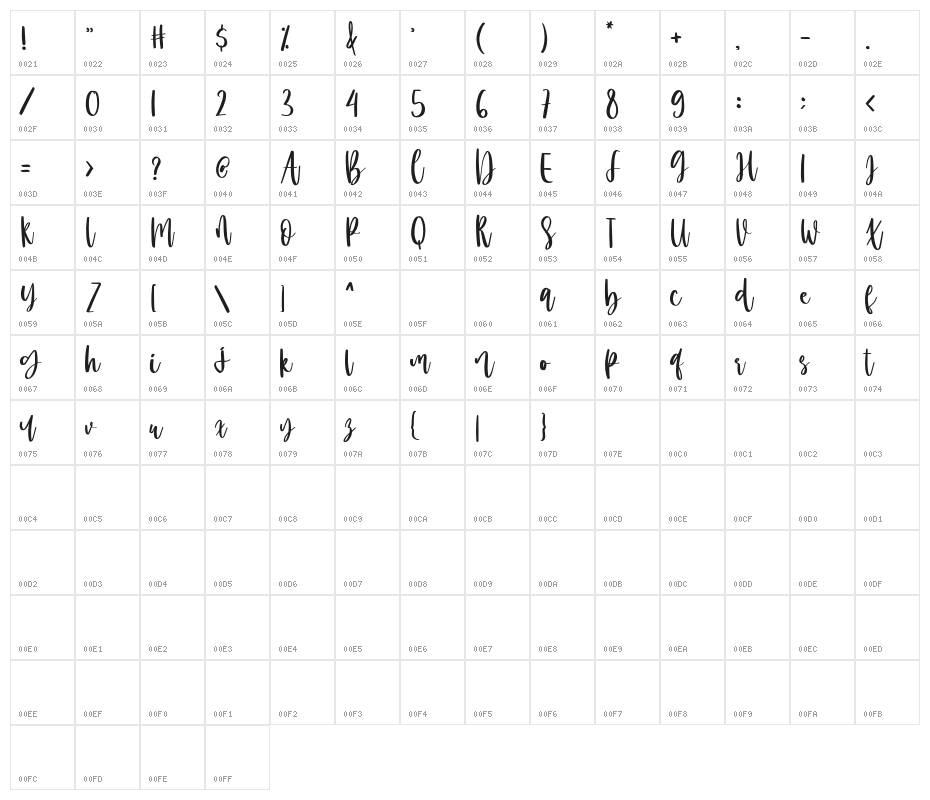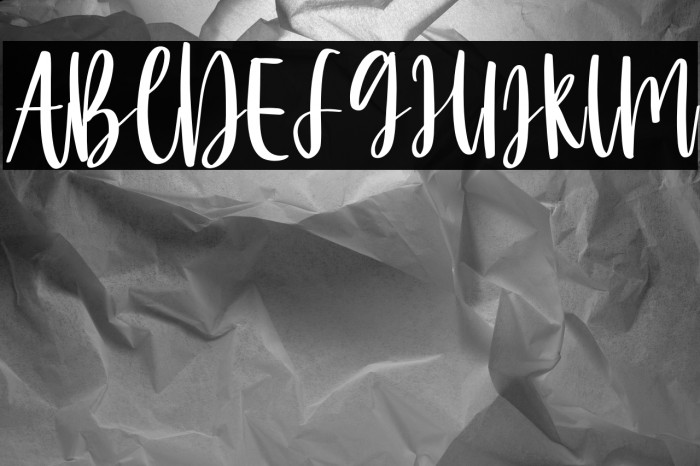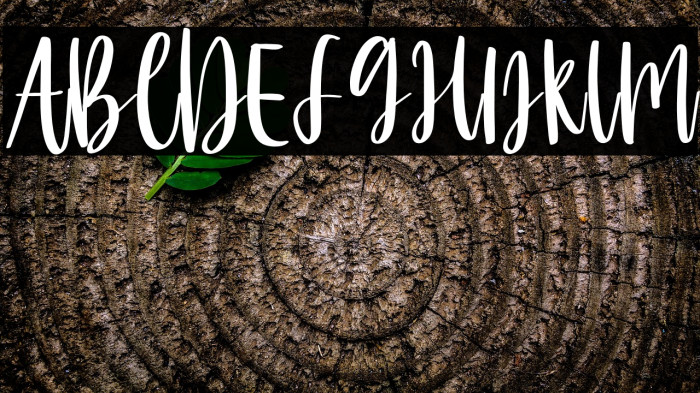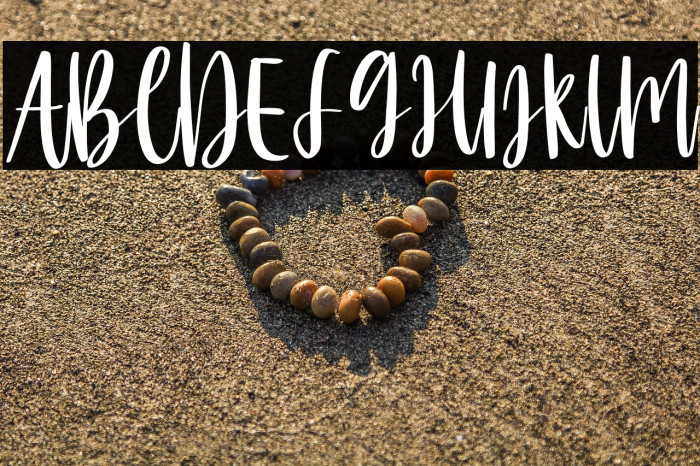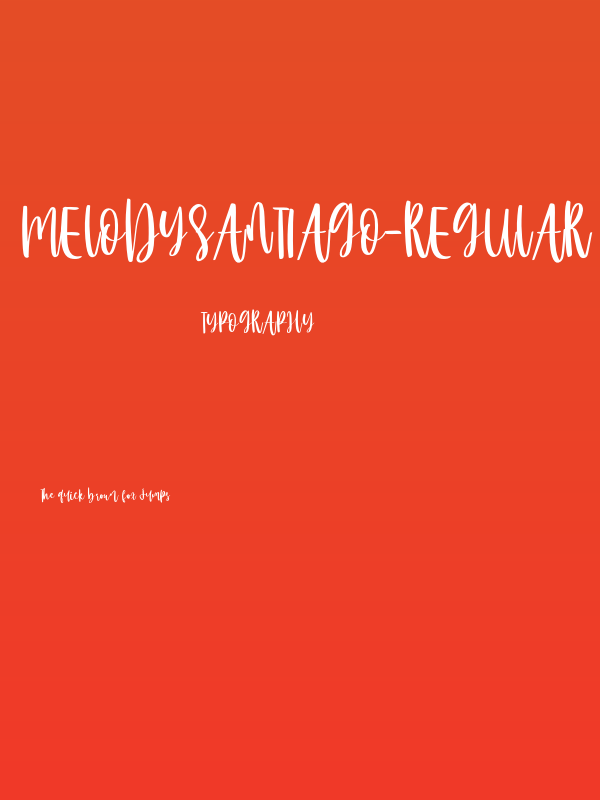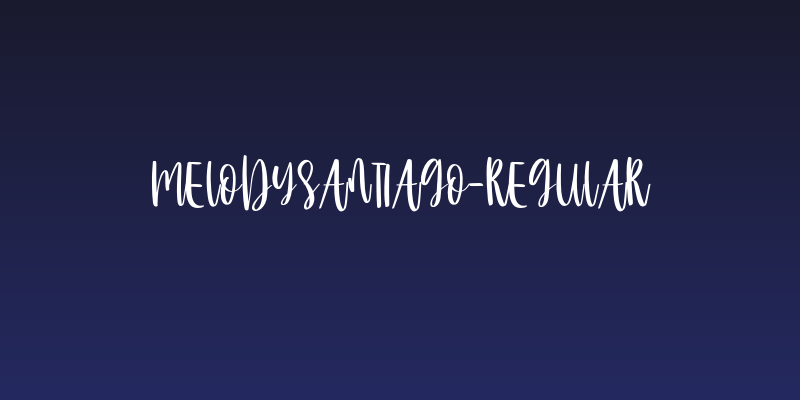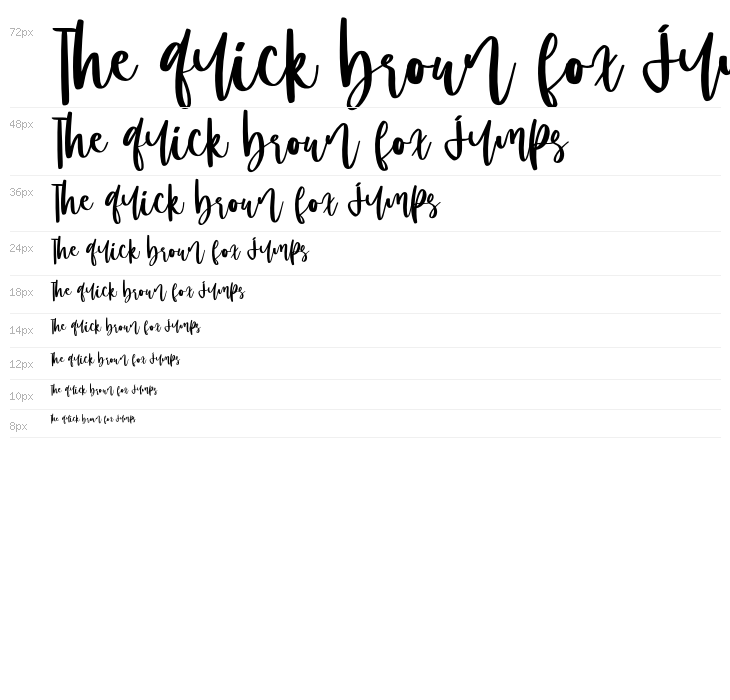
MelodySantiago-Regular Font
MelodySantiago-Regular Description
This font features a playful and artistic handwritten style, characterized by its flowing, cursive-like strokes and varying line thickness. The letters are connected in a fluid manner, giving it a dynamic and lively appearance. The uppercase letters are bold and expressive, while the lowercase letters maintain a consistent, elegant flow. The numbers and special characters are crafted with the same artistic flair, ensuring a cohesive look across all characters. This font exudes a sense of creativity and personal touch, making it ideal for projects that require a warm and inviting feel.